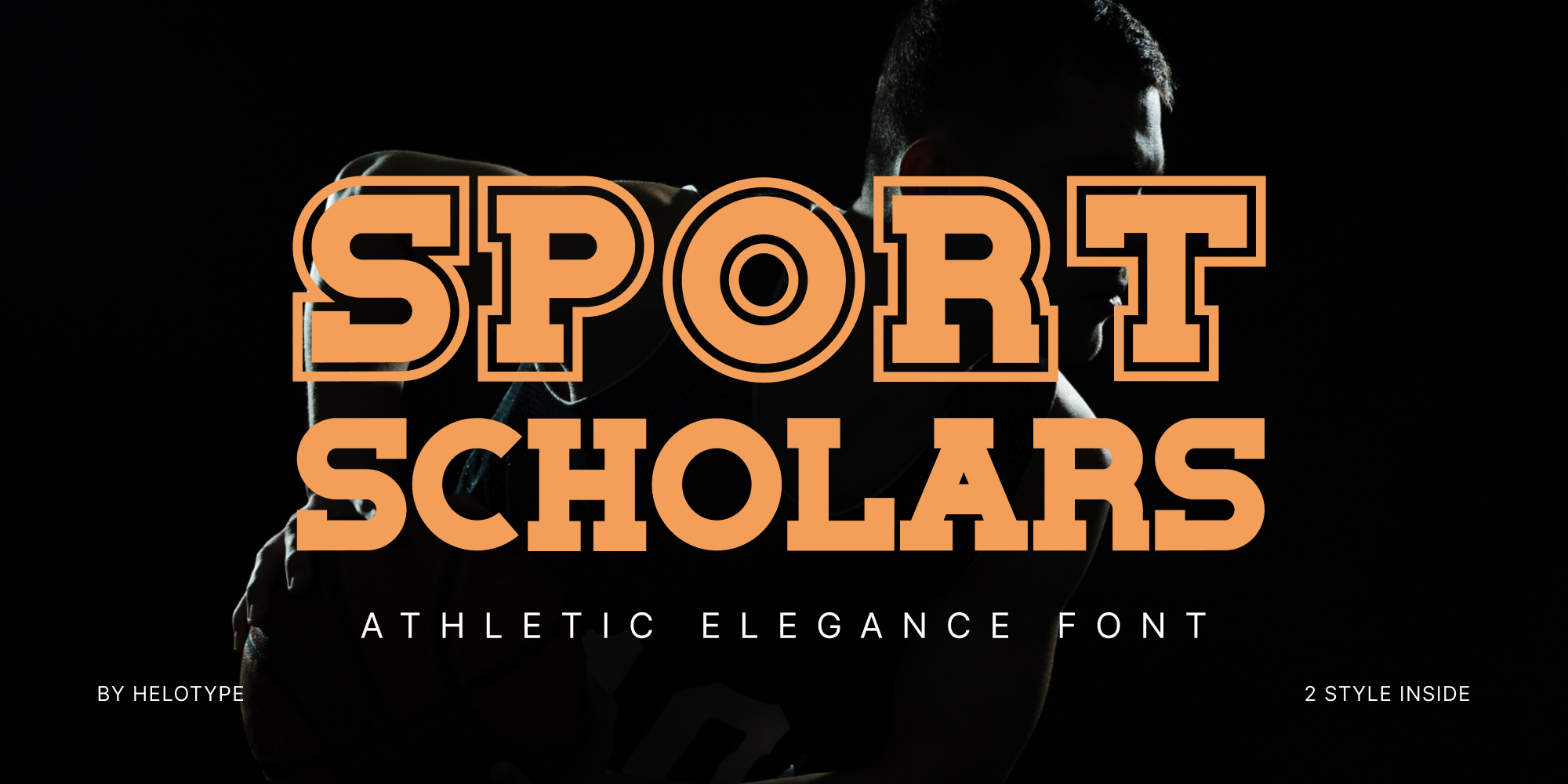
HT Sport Scholars Font excels in diverse design applications including athletic team jerseys, sports equipment branding, university athletics programs, fitness center signage, sports merchandise designs, competitive event materials, coaching certification programs, and educational sports institutions that require both academic credibility and athletic dynamism.
What makes HT Sport Scholars Font truly exciting is its unique fusion of academic excellence and athletic achievement that perfectly captures the spirit of scholar-athletes. This dynamic typeface combines the structured precision of academic typography with the energetic appeal of sports design, creating a harmonious balance that speaks to both intellectual rigor and physical performance. The font's carefully crafted letterforms reflect the discipline and dedication required for success in both academic and athletic pursuits, making it perfect for institutions and brands that celebrate the complete development of mind and body.
The HT Sport Scholars Font family includes multiple weights and stylistic variations designed to accommodate both academic and athletic applications. The collection features Light, Regular, Medium, Bold, and Black weights, each maintaining the font's characteristic balance between scholarly refinement and athletic energy. The family also includes condensed versions for jersey applications, extended variants for banner displays, and specialized character sets that include academic symbols and athletic iconography. Additional features include contextual alternates and stylistic sets that enhance both educational and sports-related communications.
Educational and athletic professionals consistently select HT Sport Scholars Font Free Download for projects requiring the perfect blend of academic respectability and sporting excitement. The font's versatile character makes it particularly effective for university athletics departments, sports scholarship programs, and educational institutions emphasizing both academic and athletic excellence. Its excellent legibility across various sizes ensures effective communication from large stadium displays to detailed academic documents.
The advanced OpenType features of HT Sport Scholars Font include contextual alternates, stylistic sets, and comprehensive character support that accommodates both academic symbols and athletic numerals. The technical precision ensures consistent performance across different applications while maintaining the font's dual academic-athletic character.
For creative professionals seeking a typeface that embodies the scholar-athlete ideal and celebrates excellence in both academics and athletics, HT Sport Scholars Font offers unparalleled versatility and inspiring character. Its ability to convey both intellectual achievement and athletic prowess makes it invaluable for educational institutions, sports organizations, and brands promoting holistic development. The font's distinctive character ensures memorable recognition across all applications, creating powerful visual identity systems that inspire academic and athletic achievement.